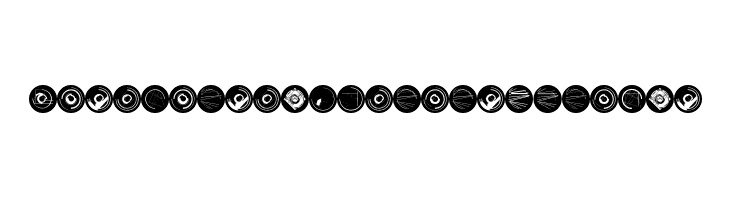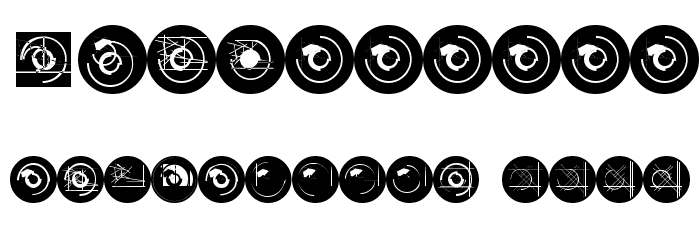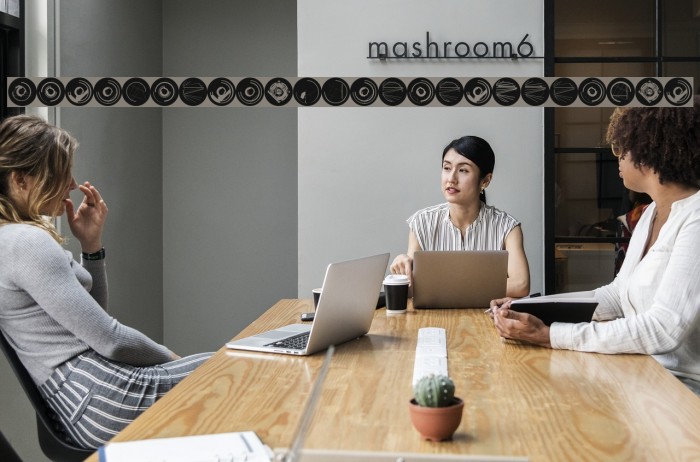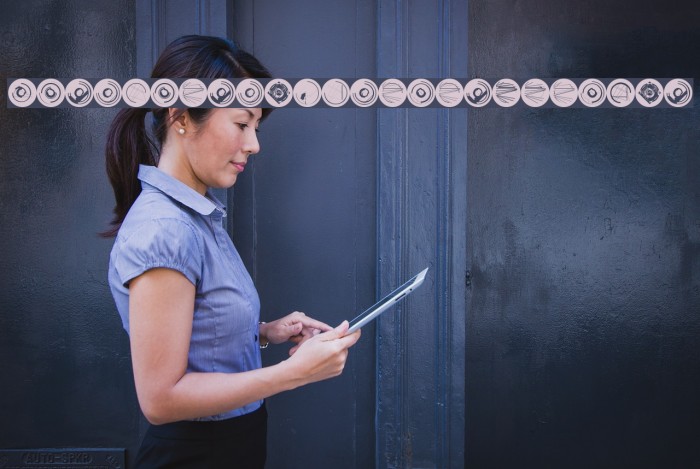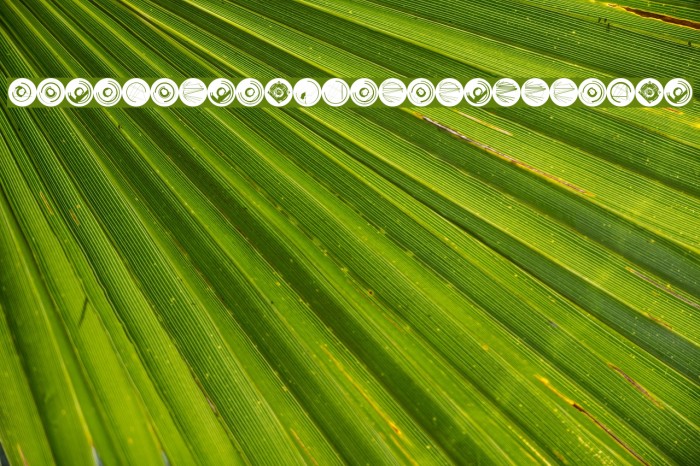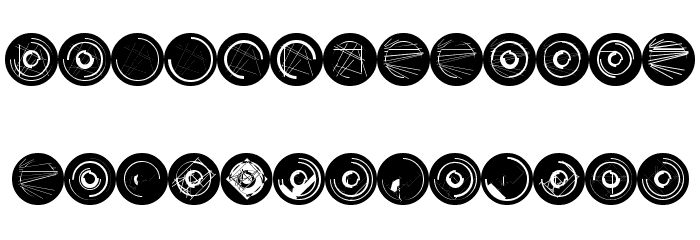
PostConstructivismInvers Font
PostConstructivismInvers Description
This font features a highly abstract and artistic design, with each character enclosed in a circular form. The letters are composed of intricate, geometric lines and shapes, creating a sense of movement and complexity. The design is reminiscent of constructivist art, with a focus on form and structure. The characters are not immediately legible, requiring a closer look to discern each letter, making it more suitable for decorative purposes rather than practical text. The overall aesthetic is modern and avant-garde, appealing to those looking for a unique and striking visual element.
| Overall Style | Modern, Avant-garde |
| Use Case | Logos, Art projects, Album covers |
| Proposed Projects | Ideal for artistic projects, modern art installations, album covers, or any design requiring a bold, abstract statement. |